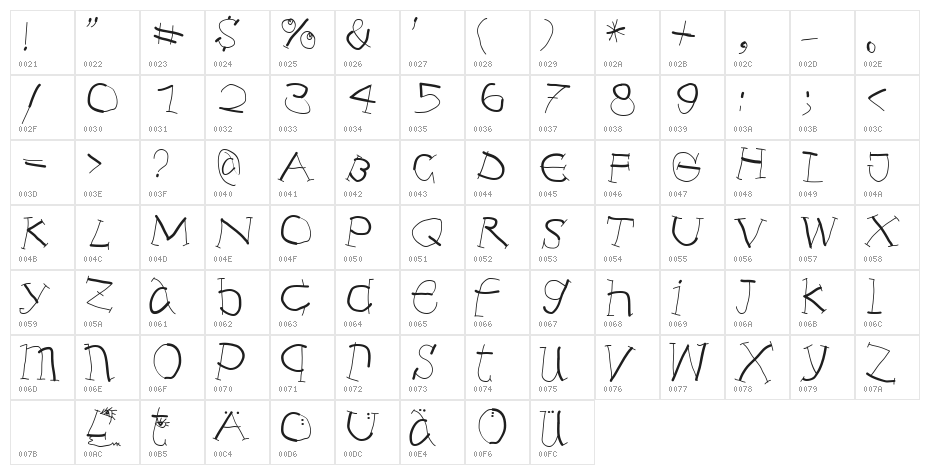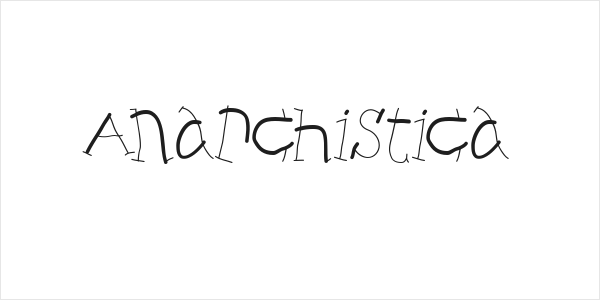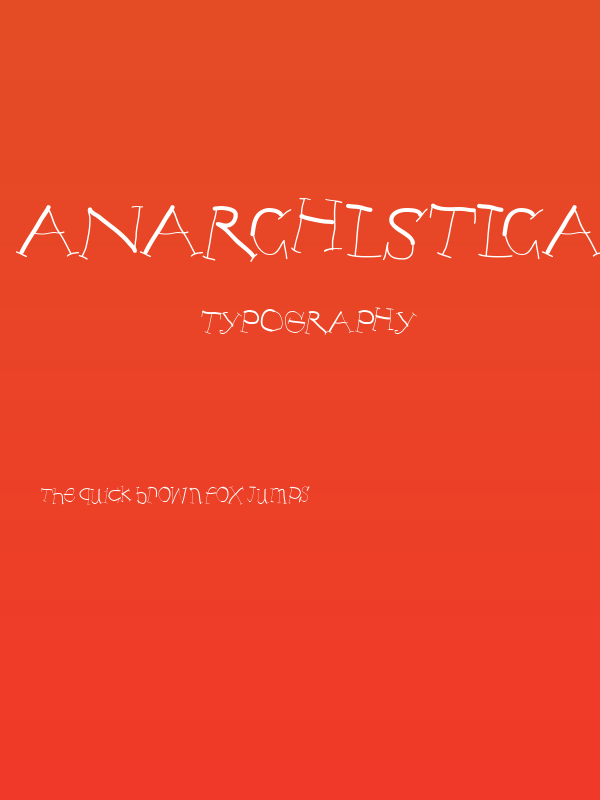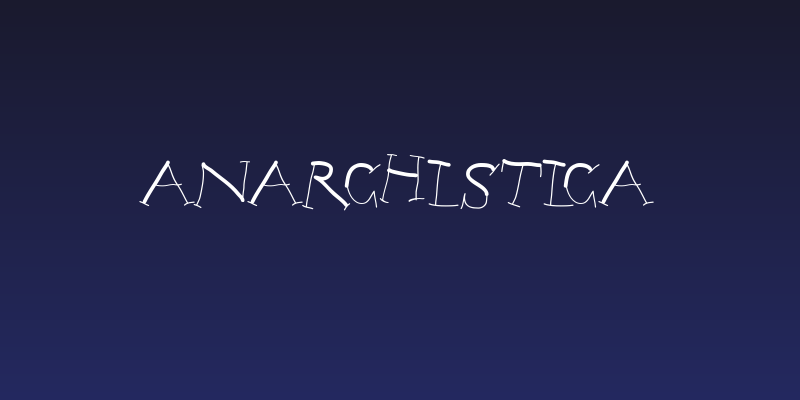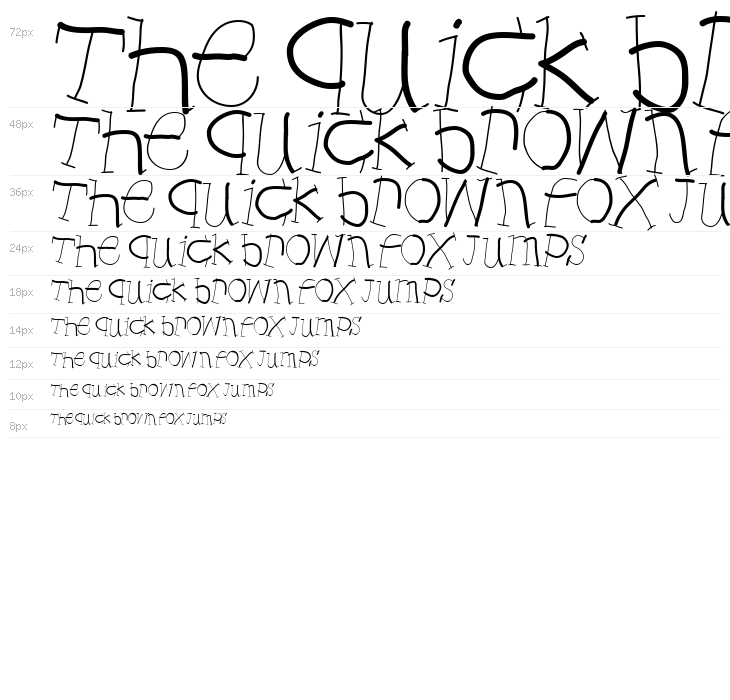
Anarchistica Font
| Anwendungsfall | Headlines, Artistic projects, Branding |
| Vorgeschlagene Projekte | Ideal for album covers, posters, artistic branding, and creative event invitations. |